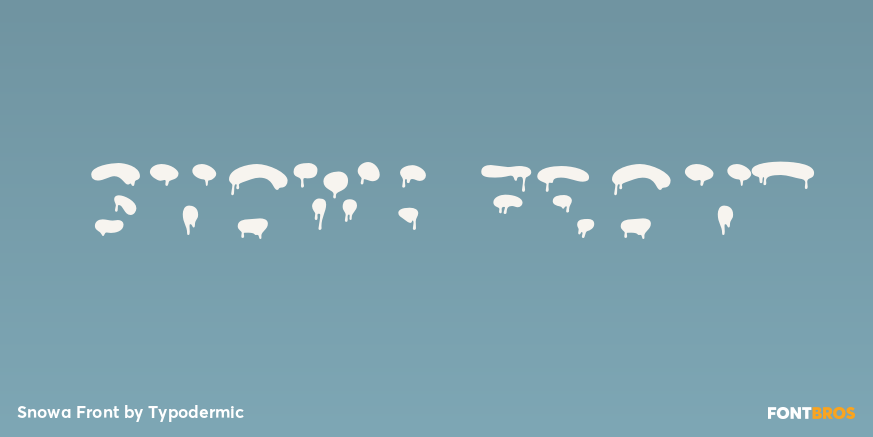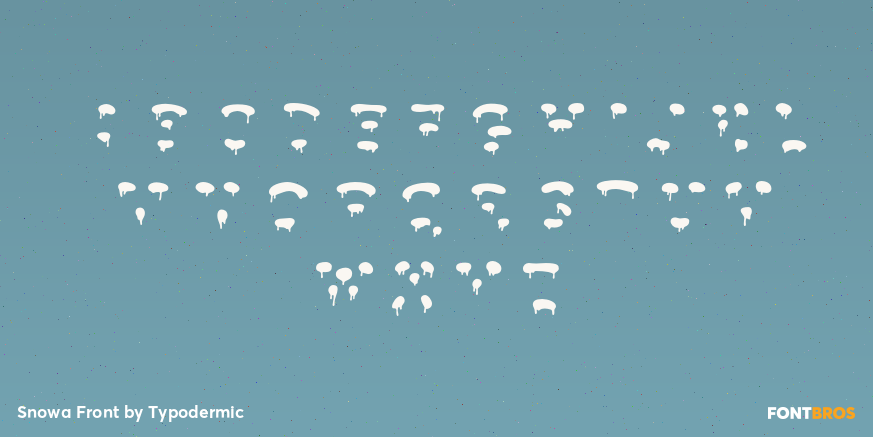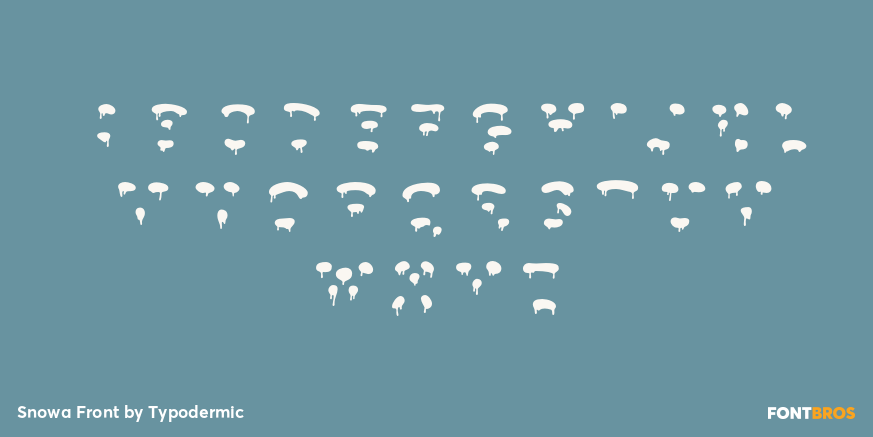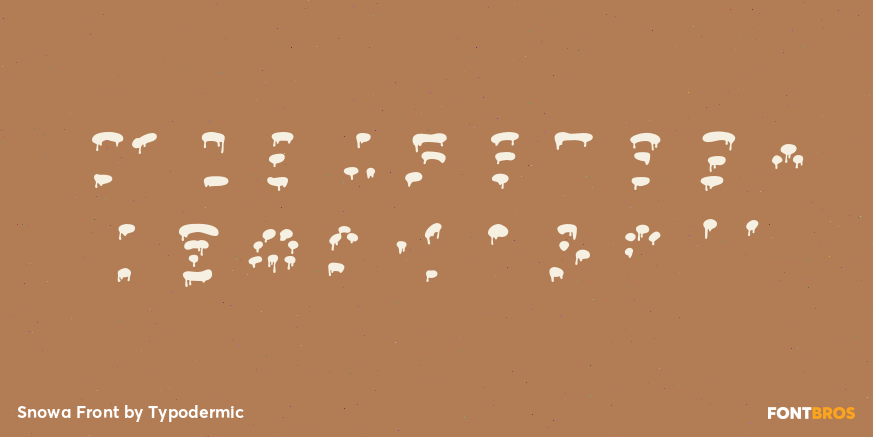
Snowa Front
Buy NowSnowa Front isolates the caps and drips of snow from Snowa's letter bodies. It is designed to align over Snowa Back, allowing the covering to carry its own color, material, print pass, or animation while the underlying title remains unchanged. Used by itself, Front reads as a scattered snow layer rather than a complete alphabet.
Use Snowa Front for two-color resort graphics, reflective or white apparel printing, contrasting embroidery, raised varnish, window vinyl, and motion sequences in which snow settles onto or leaves a word. Match its text, size, spacing, and position to Snowa Back when building the composite. Choose Snowa Snow when the finished snow-capped lettering needs to remain a single integrated color.